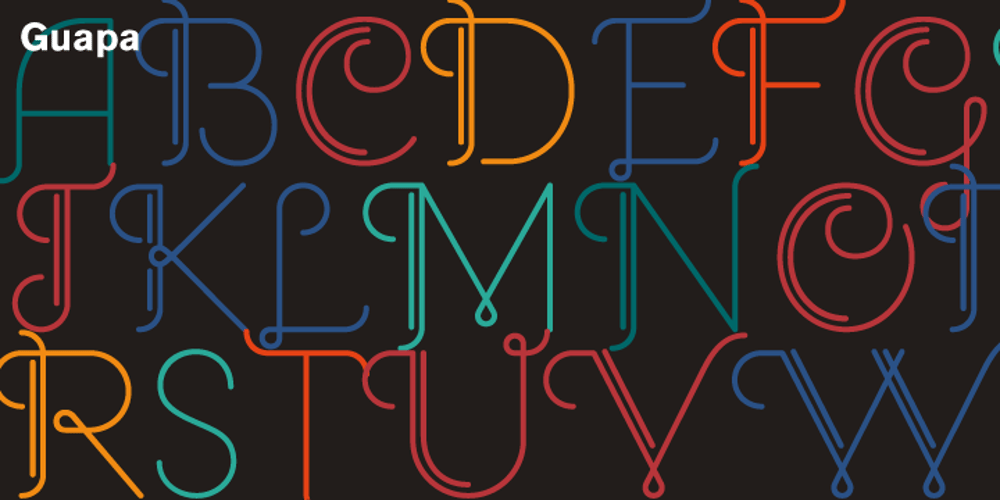
Guapa
Guapa font
Guapa Font Family was designed by Laura Meseguer and published by Type-Ø-Tones. Guapa contains 1 styles and family package options. Guapa was first born from a personal experiment: transforming a geometric sans serif ‘à la Futura’ into a charming postmodern deco design. It was applied in a poster specially designed for a typography exhibition called ‘Pimp the type’. Later it became a well-suited typeface for the word: from titles for magazines to book & record covers and packaging. The family consists in one single weight, which is provided with Discretionary ligatures, Alternative characters, Swashes forms, Initials and some Stylistic Sets. The Ornaments Series will be designed in the future, as well as a Cyrillic update. Guapa is fancy, delicious & fresh!